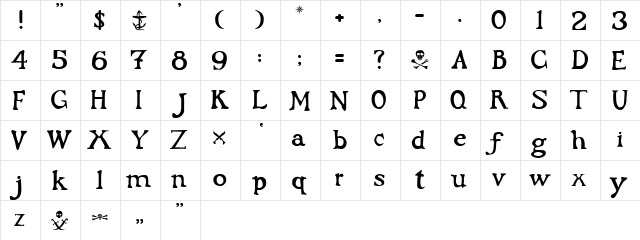
Flibustier Thin
Design Context for Flibustier Typeface
Flibustier takes a measured approach to typography — its balanced proportions and neutral character make it a reliable workhorse for both digital and print work. Its slender proportions lend an understated elegance to any composition.